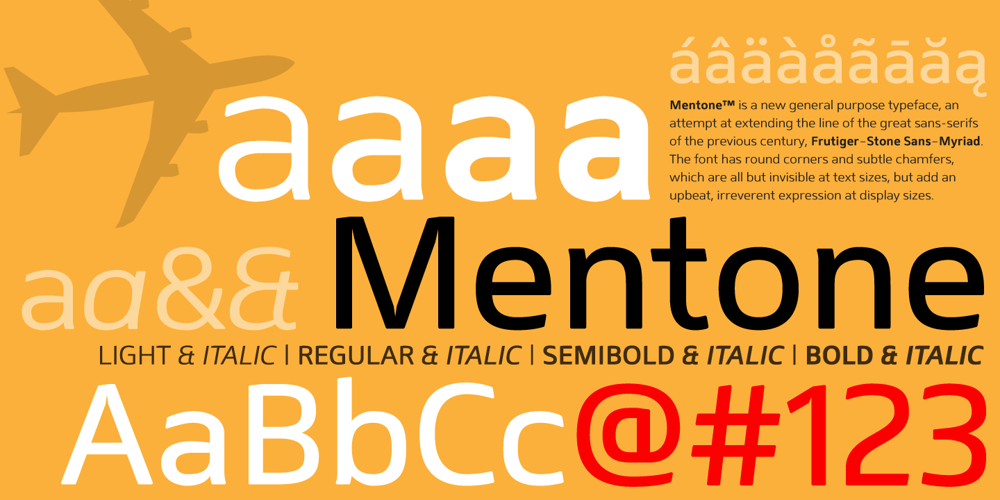
Mentone Font Family was designed by Jan Schmoeger and published by Paragraph. Mentone contains 8 styles and family package options. Mentone is a new general purpose typeface, an attempt at extending the line of the great sans-serifs of the previous century, Frutiger – Stone Sans – Myriad. The font has round corners and subtle chamfers, which are all but invisible at text sizes, but add an upbeat, irreverent expression at display sizes. The typeface is named after the beautiful bayside suburb of Melbourne, Australia, where the designer lives. This new version (2.01) was spaced and kerned by Igino Marini of iKern. The semibold cuts are now free!